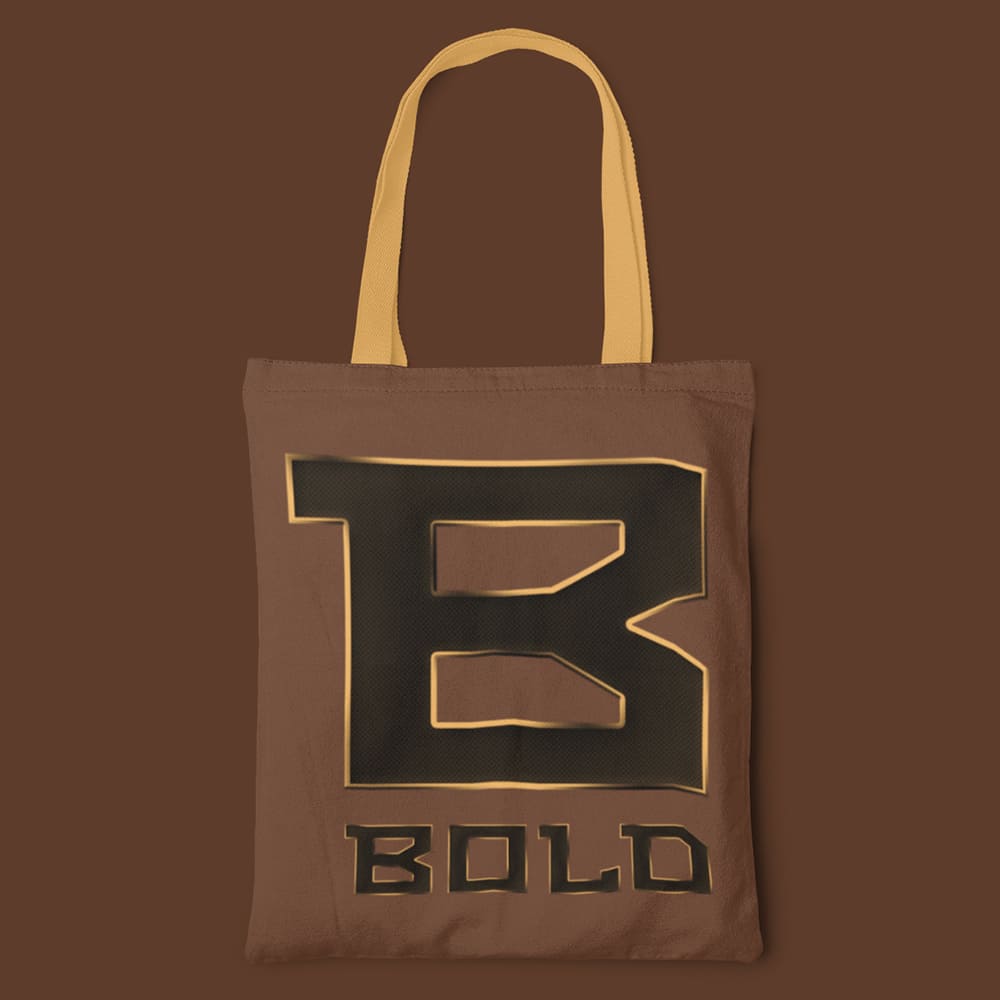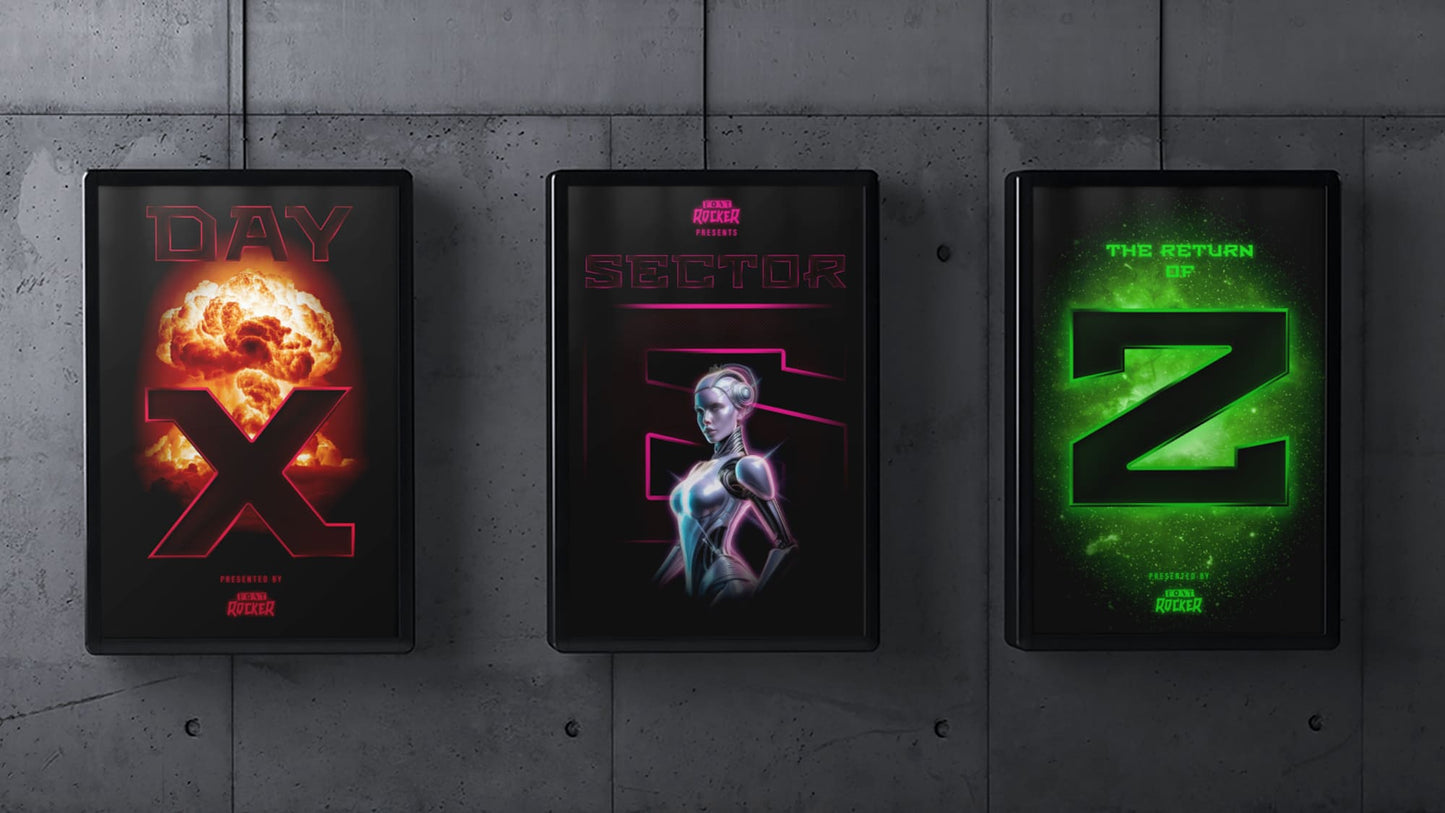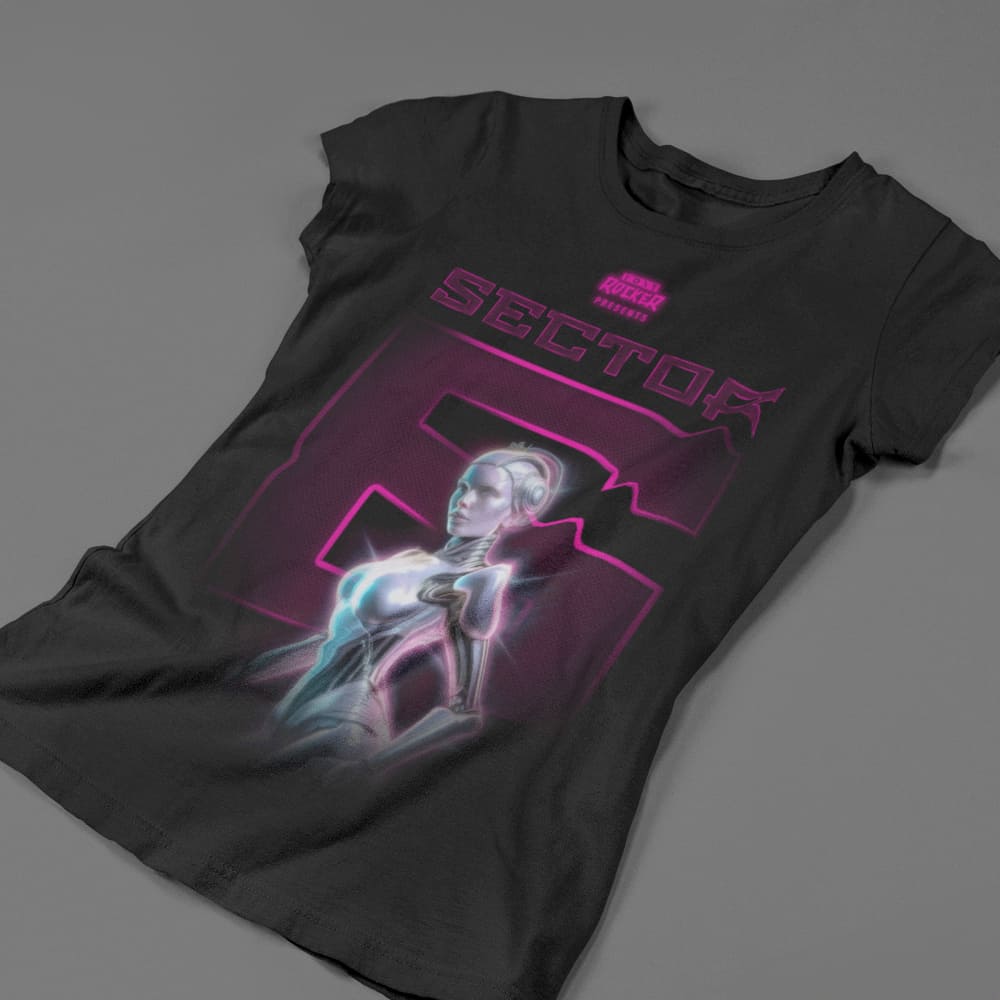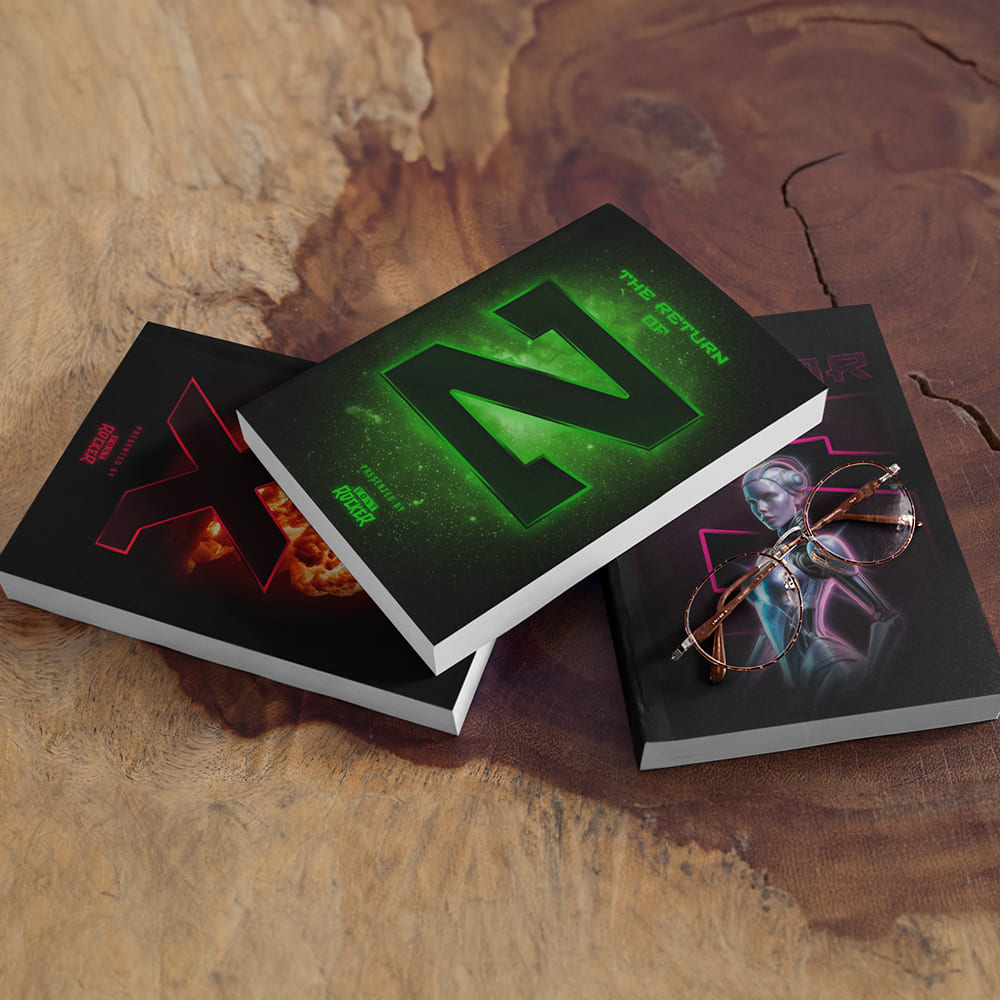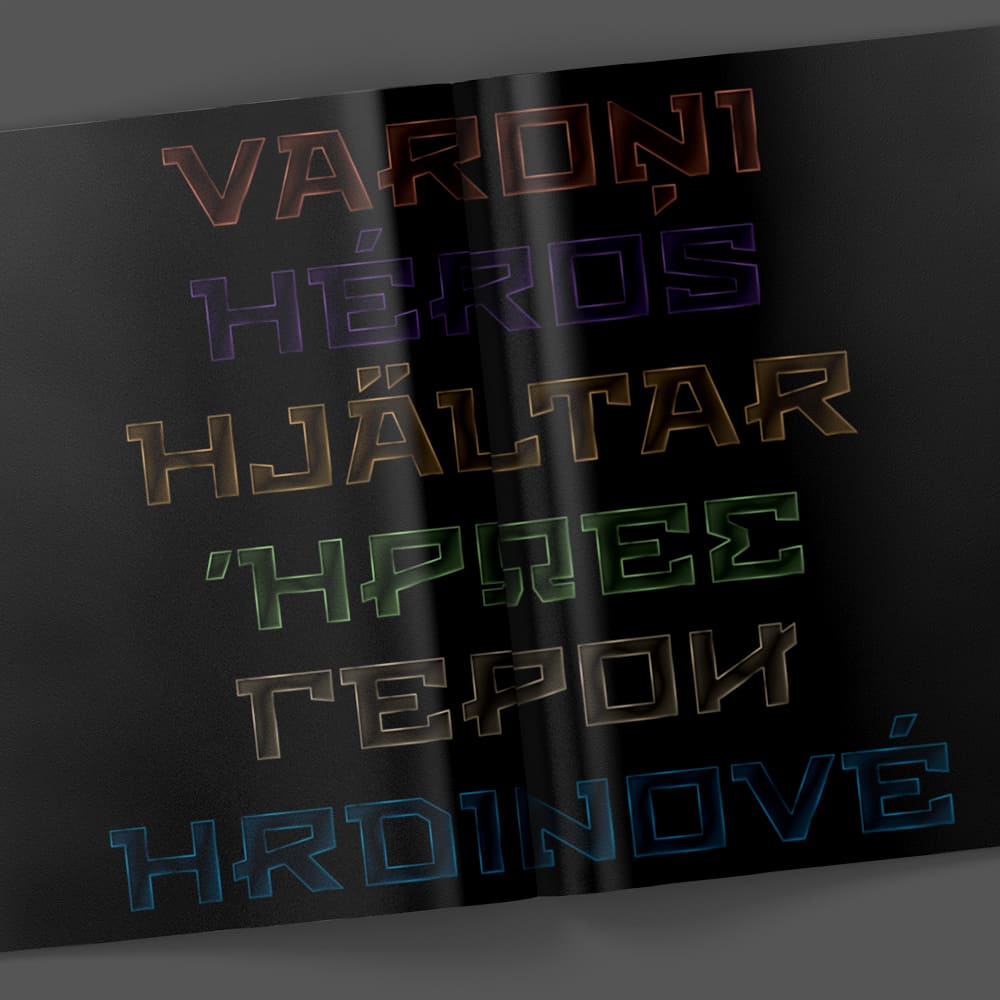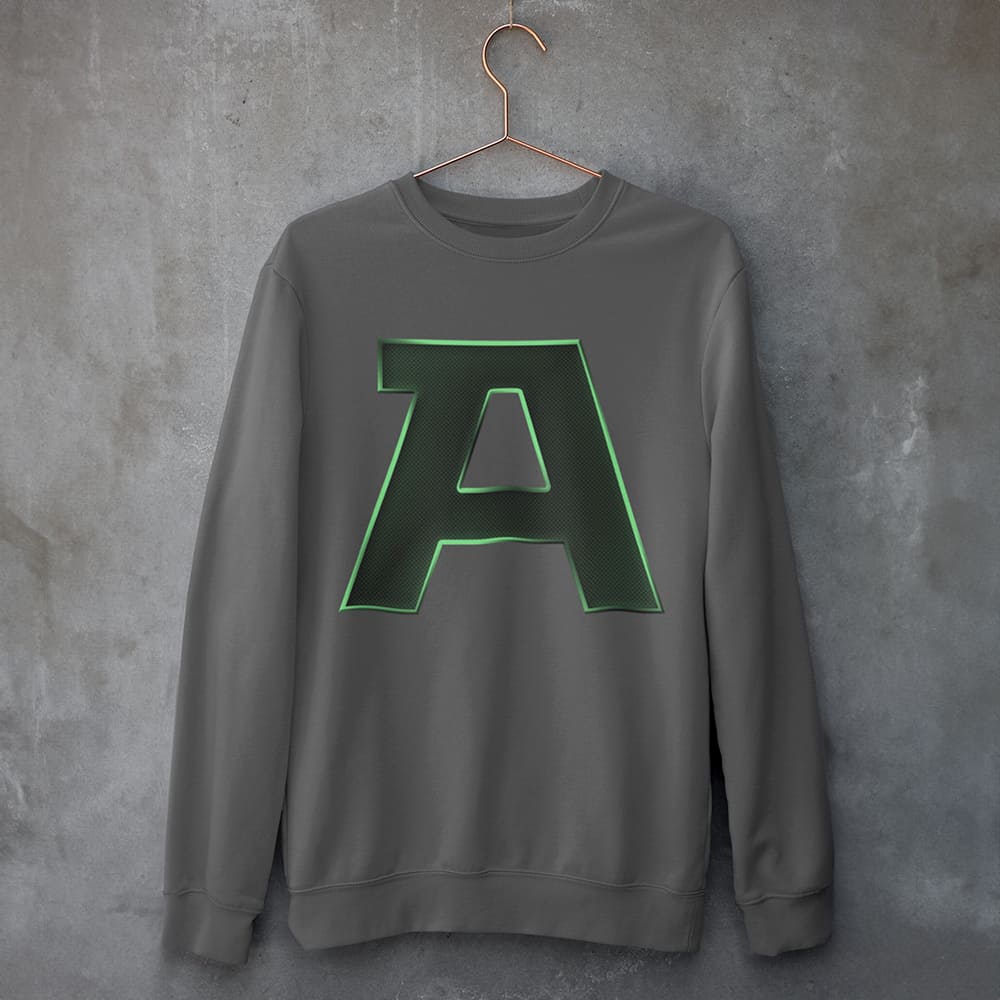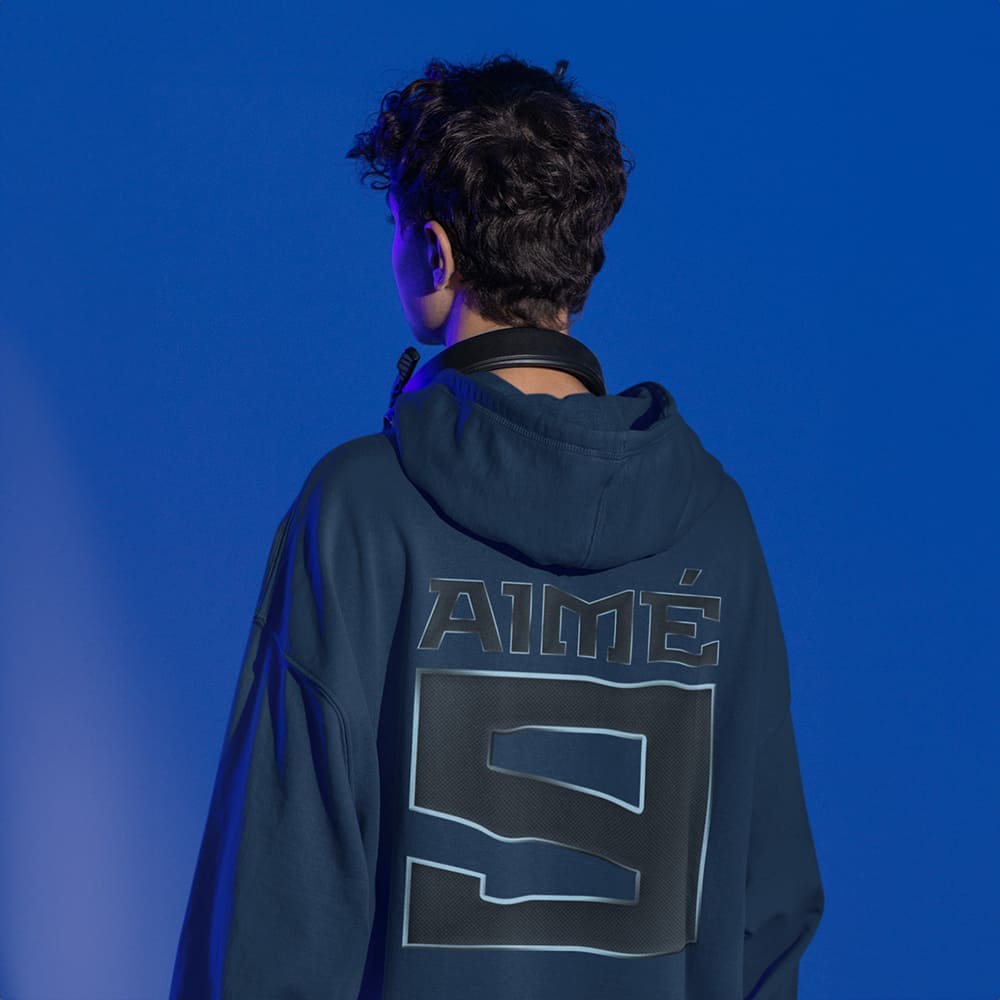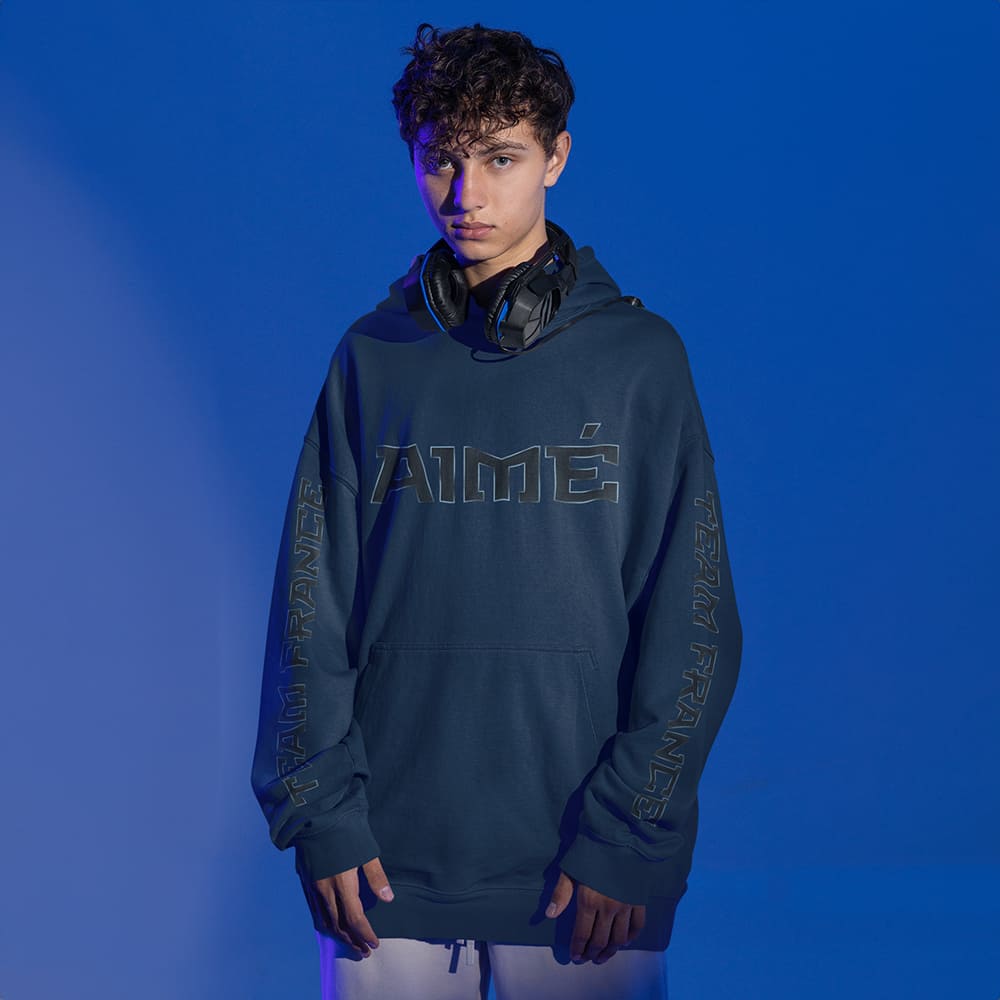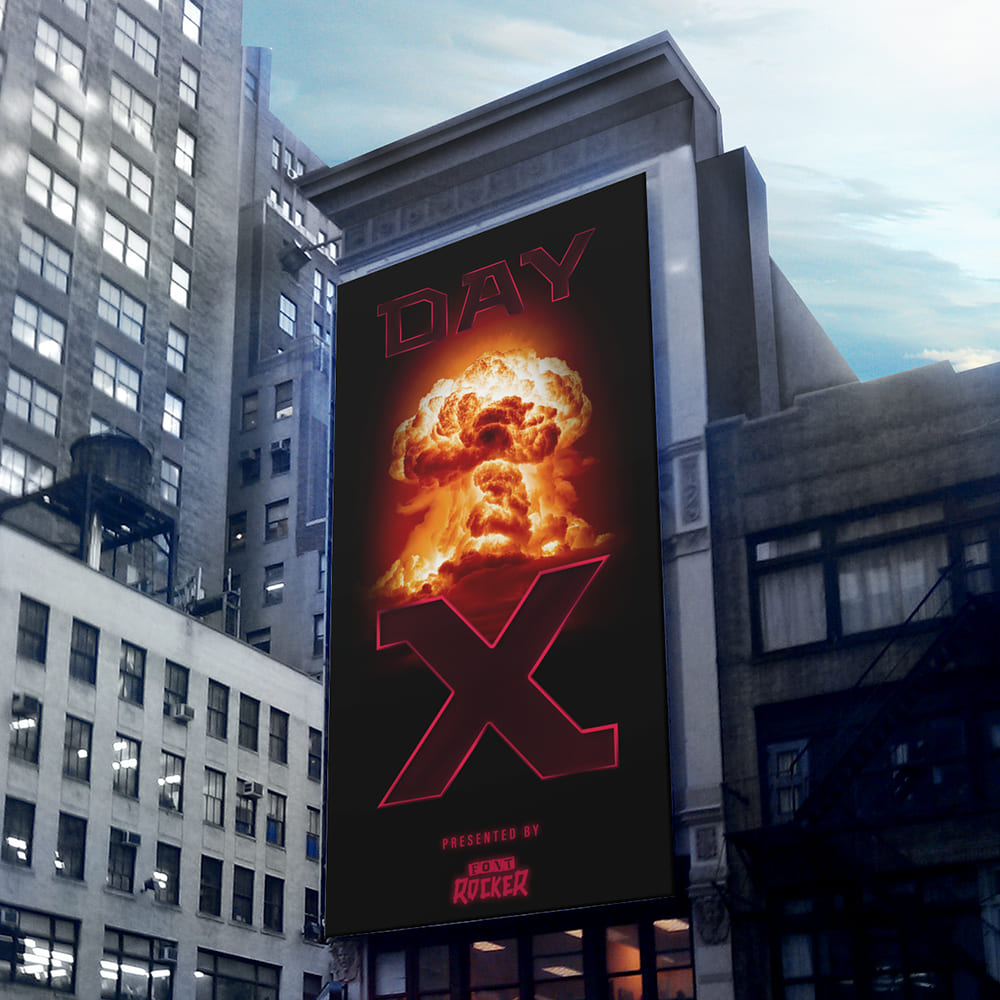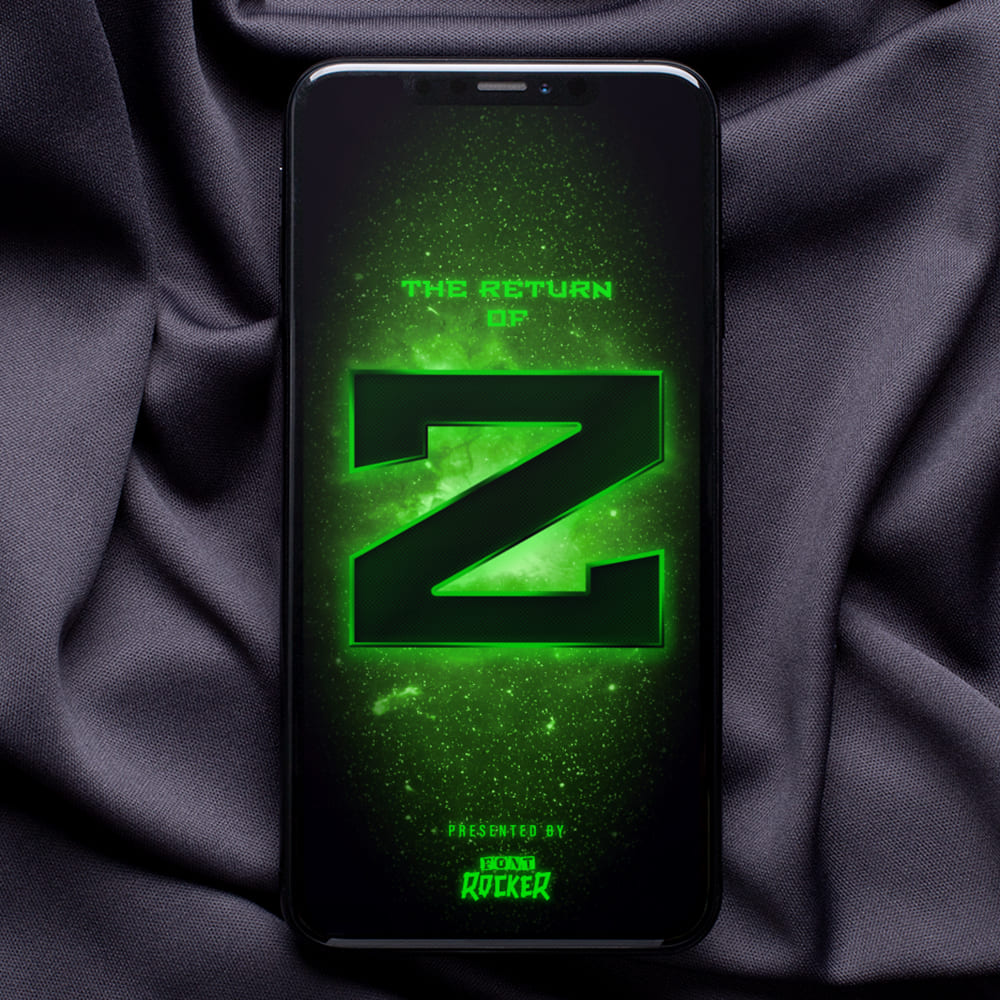
Heroes Font
Divine, Powerful, Immortal! 🦸♂️⚡🦸♀️
Every legend has a symbol. Every hero has a signature. The Heroes Font is more than just a typeface – it's a mark of courage, honor, and the unstoppable force of achieving the impossible!
Whether immortal gods, masked vigilantes, intergalactic defenders, or fearless warriors, this font embodies the essence of epic heroism in every line and curve. From the thunderous crash of a divine hammer to the earth-shaking impact of a hero landing in the city – this font brings raw, electrifying energy to your design!
Why Choose the Heroes Font?
🔹 Born from Legends – Inspired by ancient prophecies, futuristic worlds, and the greatest hero sagas of all time.
🔹 For Epic Showdowns – Perfect for movie posters, gaming designs, comic logos, merchandise, titles for fantasy and sci-fi stories, and anything destined for greatness.
🔹 Unstoppable Power – Whether light or shadow, hero or anti-hero – this font embodies the relentless force that forges legends!
🔹 Available in Multiple Colors – From bold primary shades to cosmic metallics, the Heroes Font adapts to every heroic vision!
🔥 EVERY FONT ROCKER FONT COMES WITH 325 GLYPHS & SUPPORTS OVER 100+ LANGUAGES WORLDWIDE, INCLUDING CYRILLIC, GREEK & MORE.
Rise to the Pantheon of Heroes!
With the Heroes Font, every project becomes a monumental statement. This font is for the fearless, the visionaries, and the legends of tomorrow. The question isn't whether you're ready – the question is: Are you worthy?
🔹 Awaken Legends. Forge Myths. Choose the Heroes Font!
🔥🦸♂️⚡🦸♀️